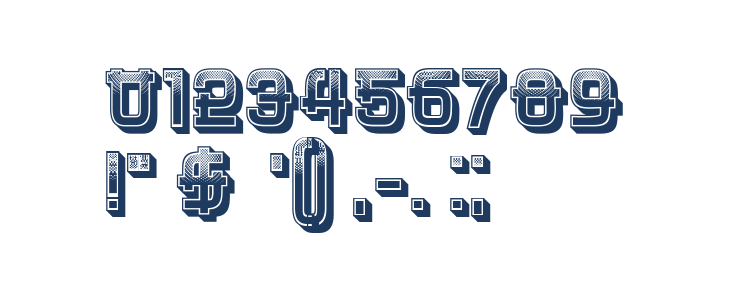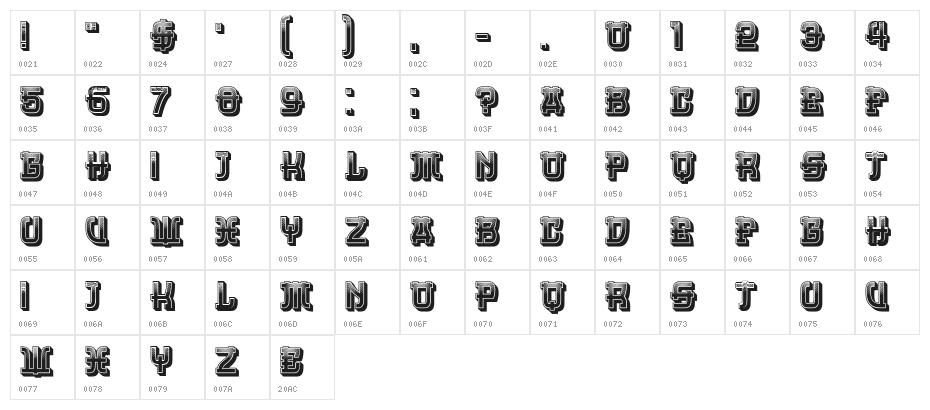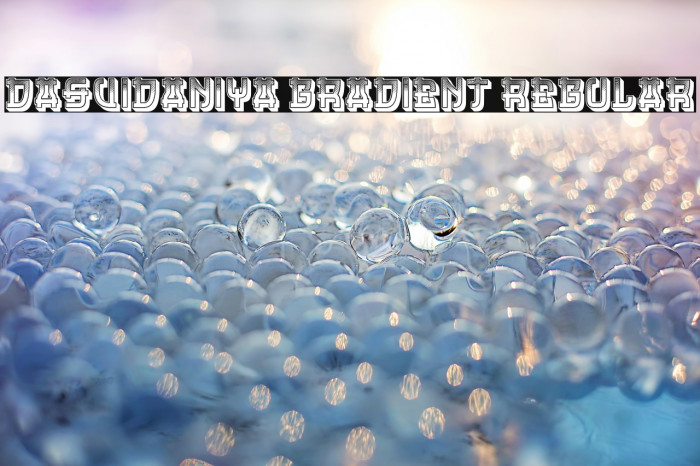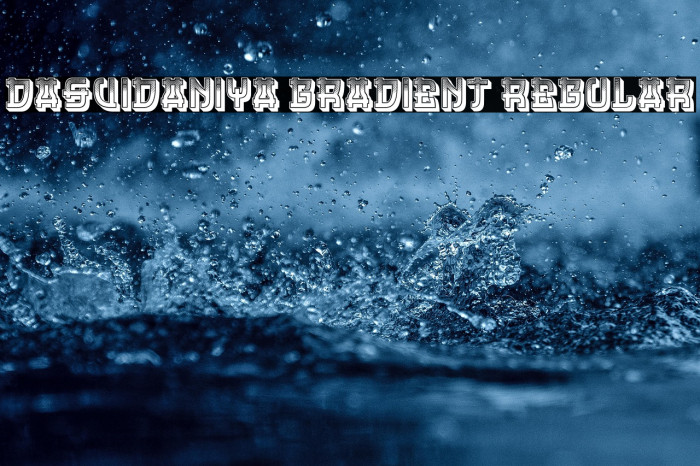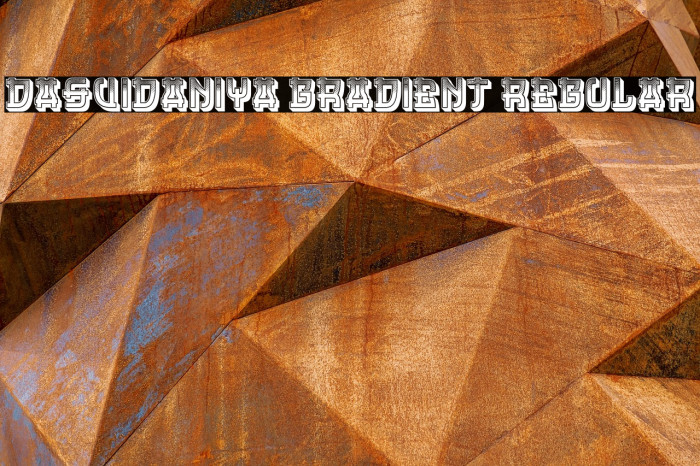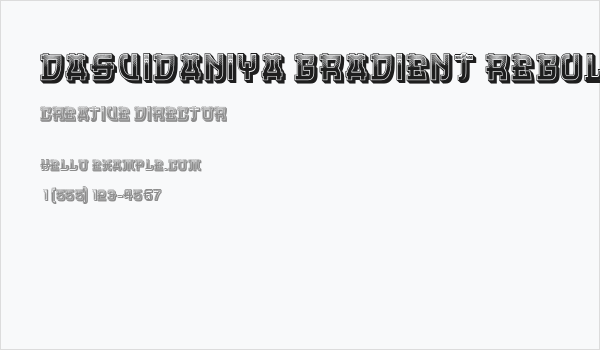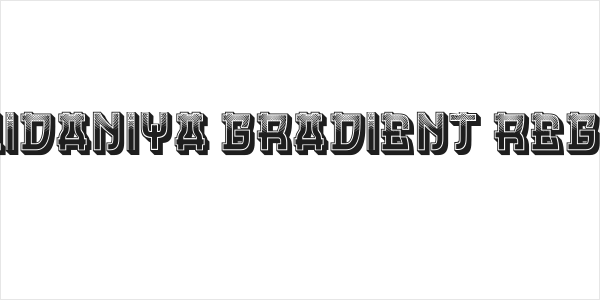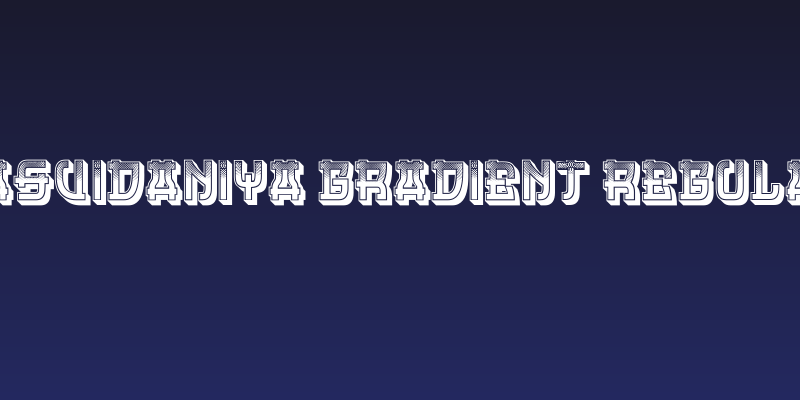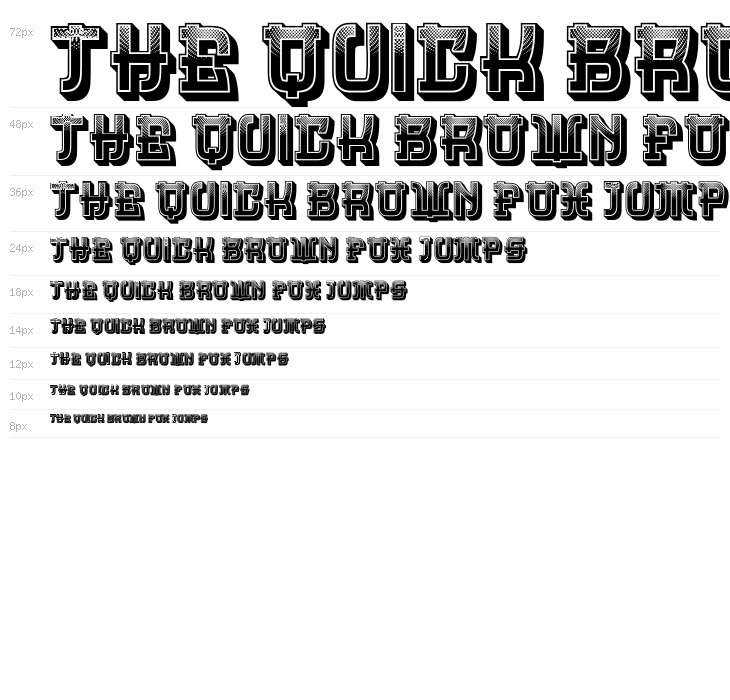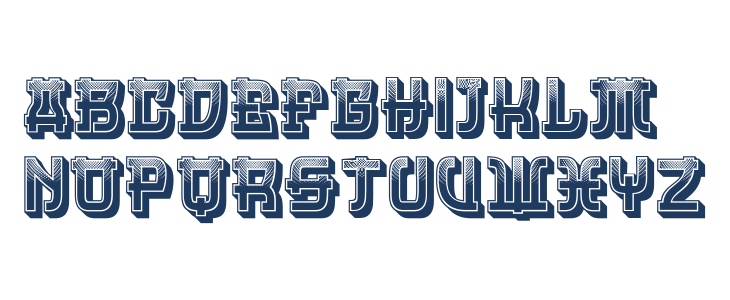
Dasvidaniya Gradient Regular Font
Dasvidaniya Gradient Regular Description
This font features a bold, decorative style with a distinct gradient effect that gives it a three-dimensional appearance. The characters are heavily stylized, with intricate details and a strong presence, making them ideal for eye-catching designs. The uppercase letters are particularly striking, with a blocky, geometric form that is both modern and retro. The numbers and special characters maintain the same bold aesthetic, ensuring consistency across all elements. This font is perfect for projects that require a strong visual impact and a touch of vintage flair.
A bold, decorative font with a gradient effect and a retro-modern style from Uncategorized fonts.
- Proposed Projects: Ideal for posters, logos, headlines, and any design requiring a bold, eye-catching font.